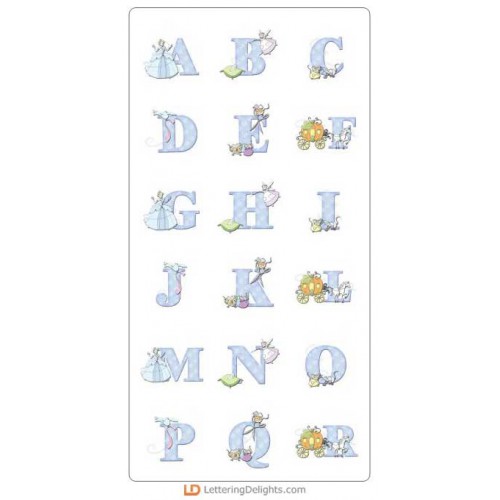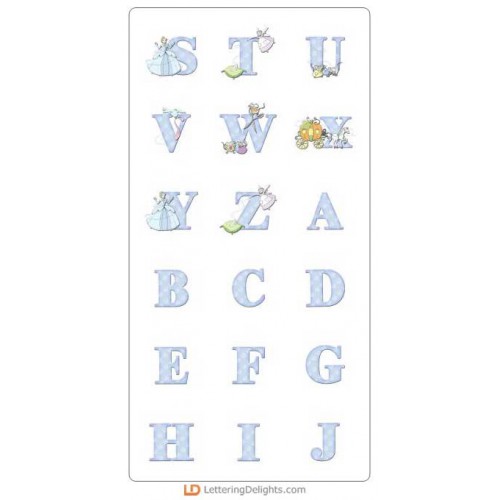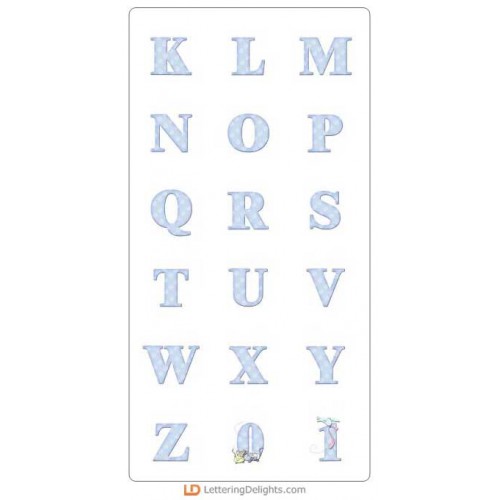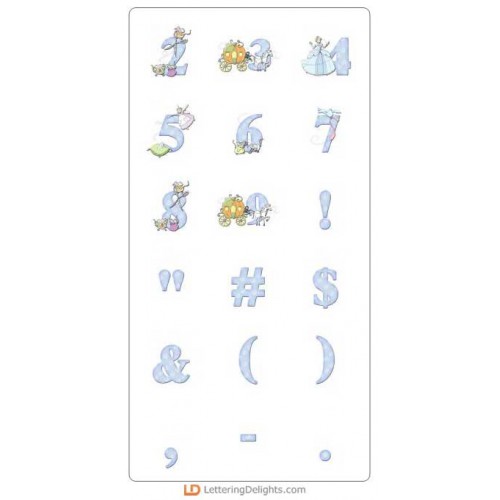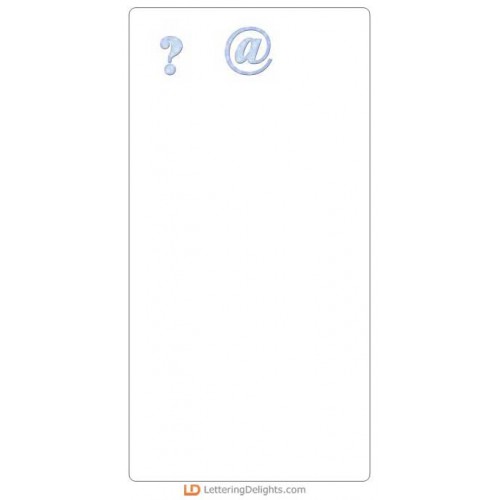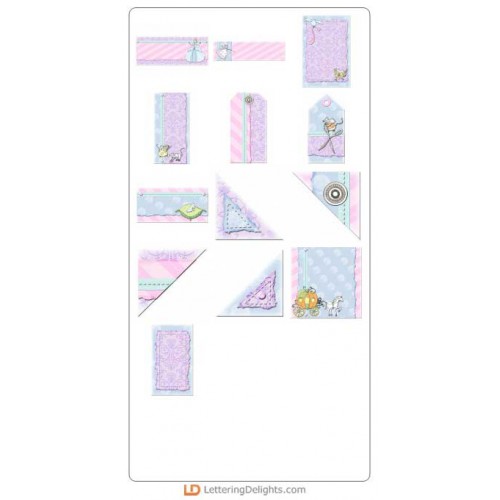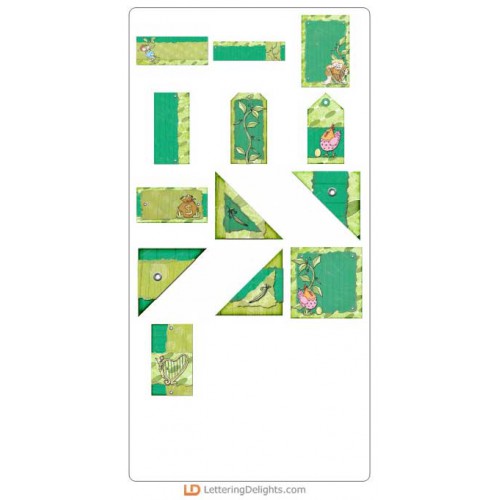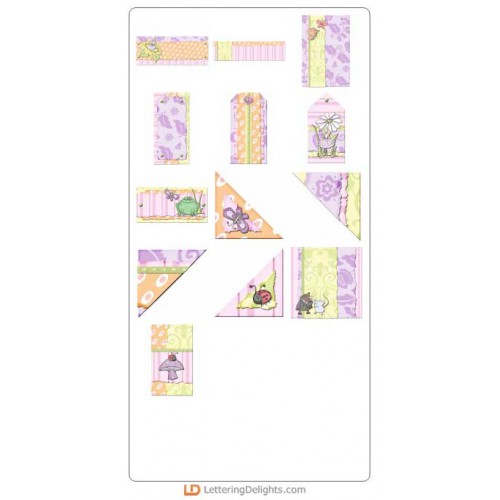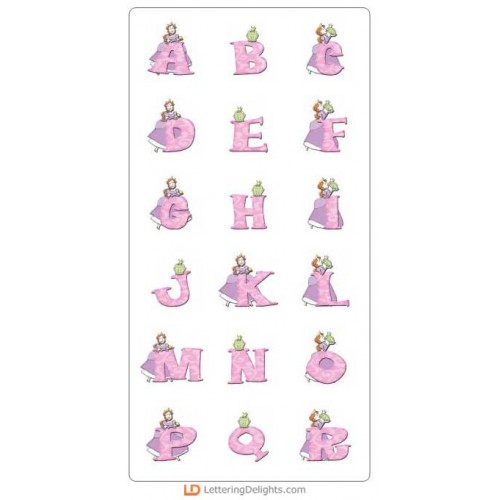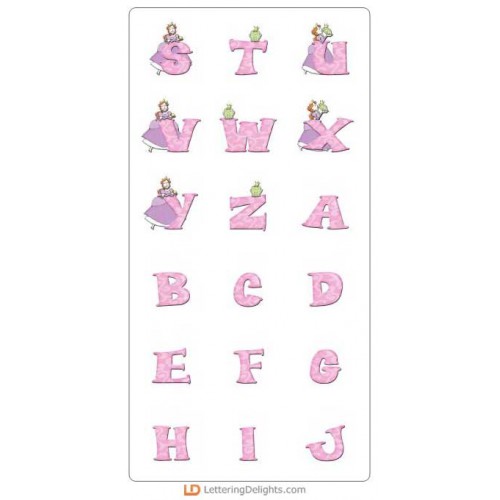
Rani's Fairytale Time Bundle
Snuggle up for your favorite fairy tale. This cute bundle is loaded with fairy tale alphabets and Journaling Delights. Imagine up wonderful bulletin boards, newsletters, party invitations, greeting cards, scrapbook pages especially for kids and more.